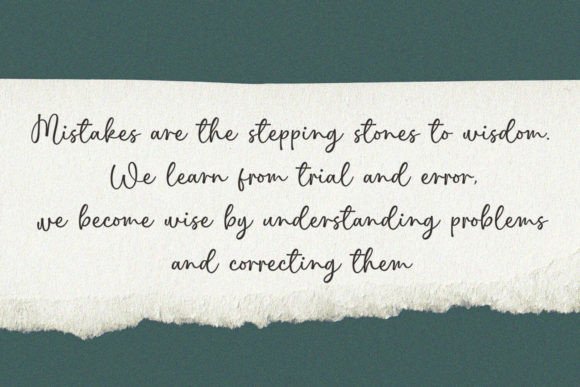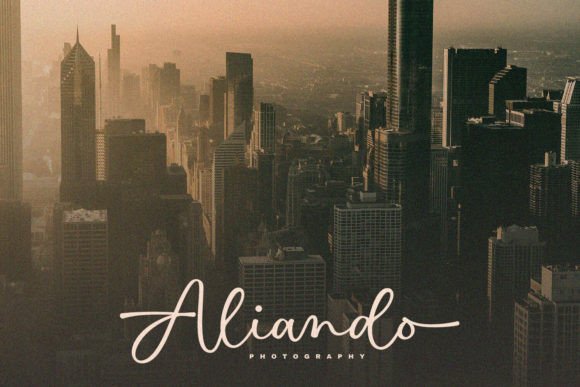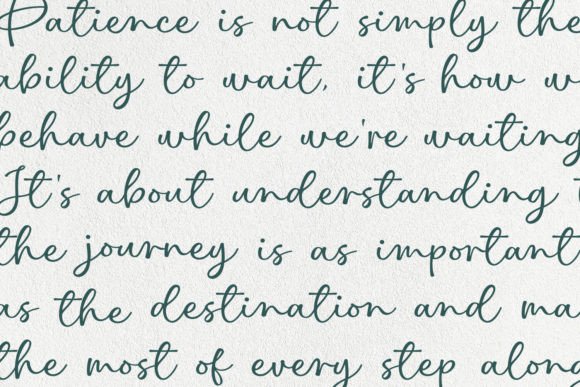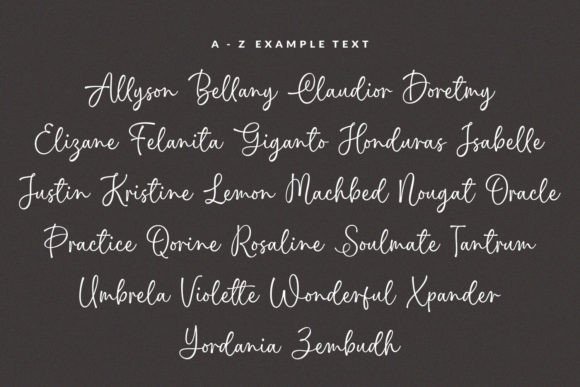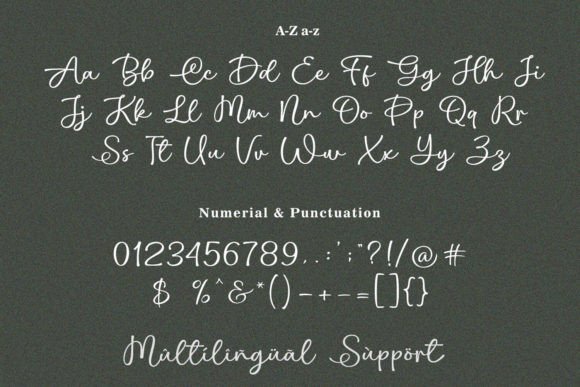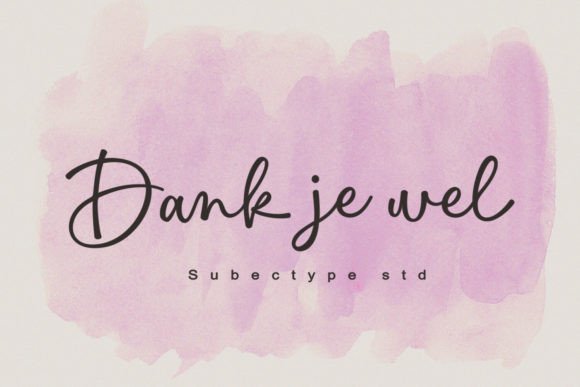
Discover the Timeless Elegance of Cathilda Font
Remember the moment when you stumbled upon the perfect font for your latest design project? The one that made your text stand out and left a lasting impression on your audience? For designers, that moment is what makes all the hard work worth it.
That’s exactly what happens when you work with Cathilda Font, a chic and charming script font that embodies elegance and sophistication. With its gentle curves and stylish flourishes, Cathilda Font adds a touch of luxury to any project, making it perfect for wedding invitations, branding, and packaging designs.
Whether you’re a seasoned designer or just starting out, Cathilda Font is a valuable addition to your toolkit. Its timeless beauty and class ensure that every text looks exquisite, setting you apart from the rest and elevating your designs to new heights.
Cathilda Font Key Features
- Font Family: Cathilda Font is a script font family, ideal for creative and elegant designs.
- Unique Characteristics: Features hand-drawn, brush-like strokes, giving it a unique and personal touch, perfect for invitations, wedding designs, and other special occasions.
Cathilda Font Review
As a designer, I was excited to dive into the world of Cathilda Font. I’ve seen it used in various projects, but I wanted to see if it truly lived up to its hype. ✨ One of the things I love about Cathilda is its elegant and sophisticated feel. It’s perfect for high-end branding, luxury fashion, or even elegant invitations. The font’s curves and lines are beautifully crafted, making it a standout in any design.
However, I do have some ⚠️ concerns. One of the limitations I’ve noticed is that Cathilda can be quite ornate, which may not be suitable for all designs. It’s best used for projects that require a touch of luxury and sophistication. Additionally, some of the characters may not display as well in certain contexts, which can be frustrating for designers who need precise control.
- ✨ Elegant and sophisticated feel
- ✨ Perfect for luxury branding, fashion, and invitations
- ⚠️ May be too ornate for some designs
- ⚠️ Some characters may not display well in certain contexts
Overall, I think Cathilda is a beautiful font that can elevate any design. However, it’s essential to be aware of its limitations and use it judiciously. With the right project, Cathilda can be a true showstopper.
For optimal results, use Cathilda Font in headings and titles to create visual hierarchy and emphasis. You can also pair it with other fonts to create a unique and engaging design.
Cathilda Font is ideal for:
- Brand identities and logos
- Editorial and magazine designs
Alternatives to Cathilda Font
Playfair Display is a luxurious and elegant serif font, perfect for creating a sophisticated and high-end look. It’s ideal for use in titles, headings, and other prominent text elements. When to use: Luxury brands, high-end fashion, and elegant designs.
Compared to Cathilda Font, Playfair Display has a more refined and classic feel, with intricate details and ornate flourishes. While Cathilda Font has a more rustic and vintage charm, Playfair Display exudes luxury and sophistication.
Great Vibes is a beautiful and elegant script font, ideal for creating a warm and inviting atmosphere. It’s perfect for use in titles, headings, and other prominent text elements. When to use: Wedding invitations, luxury brands, and elegant designs.
What is the recommended font size for using Cathilda?
The recommended font size for using Cathilda varies depending on the design application. For body text, a font size of 12-14 points is recommended, while for headings, a font size of 24-36 points is recommended.